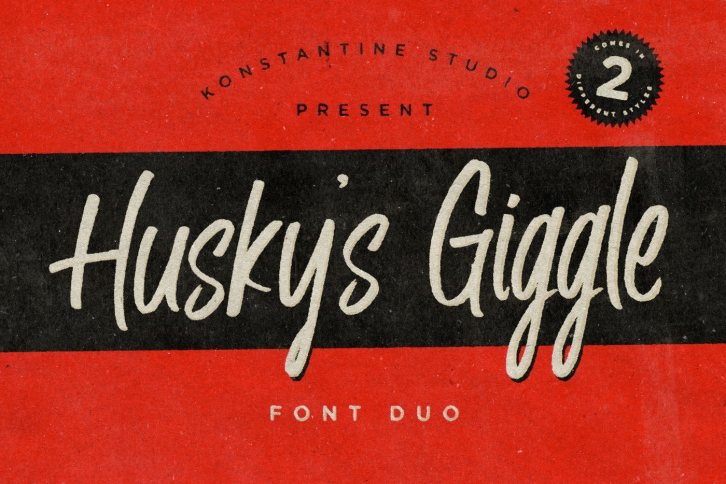
- Husky Giggle : A casual hand stroked by brush pen and ink. Fast and casual. Perfectly fit for your vintage casual fun logo and branding needs.
- Husky Giggle again : Another style for each letters from the Husky Giggle. A twins but not so twins.